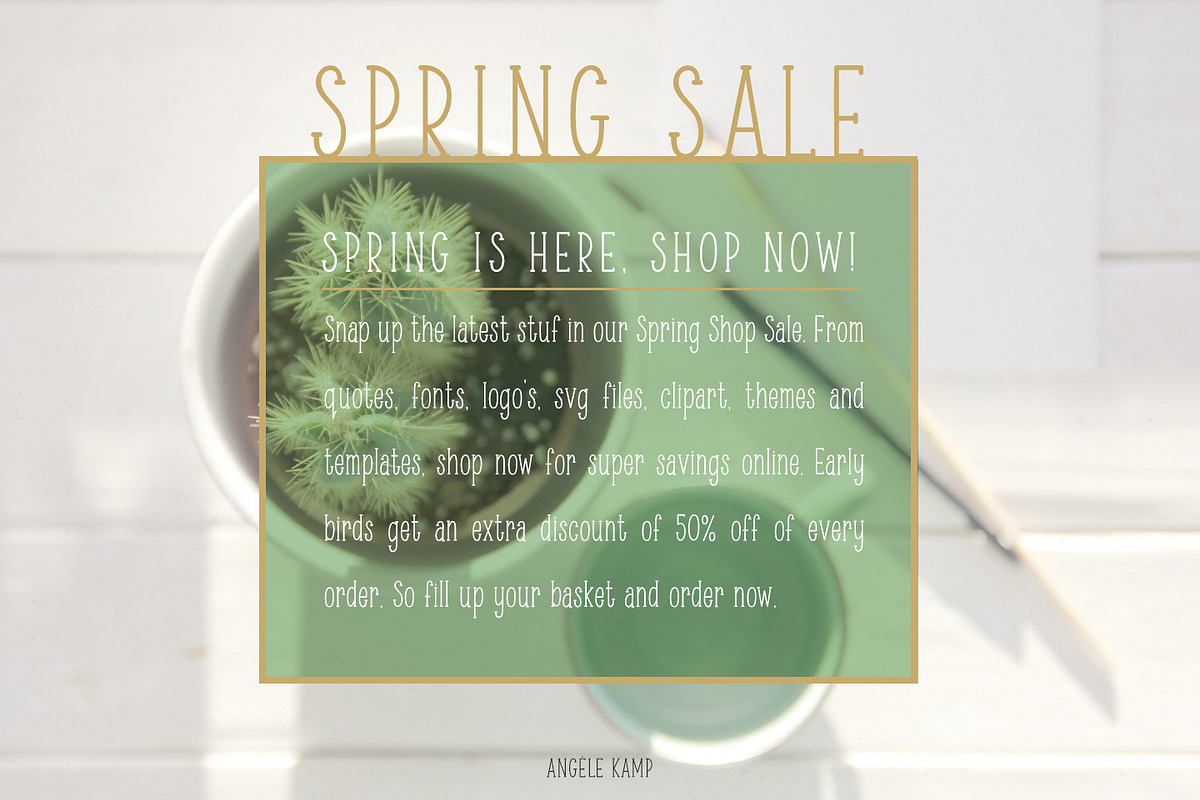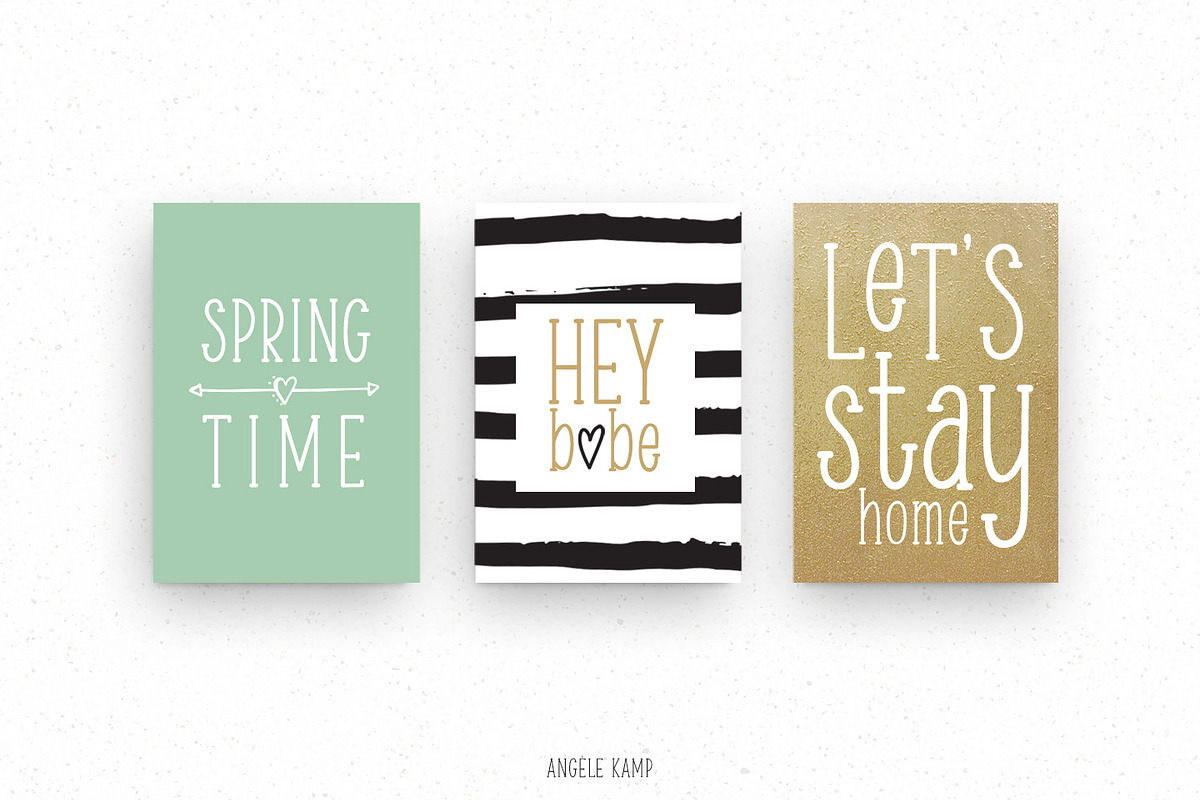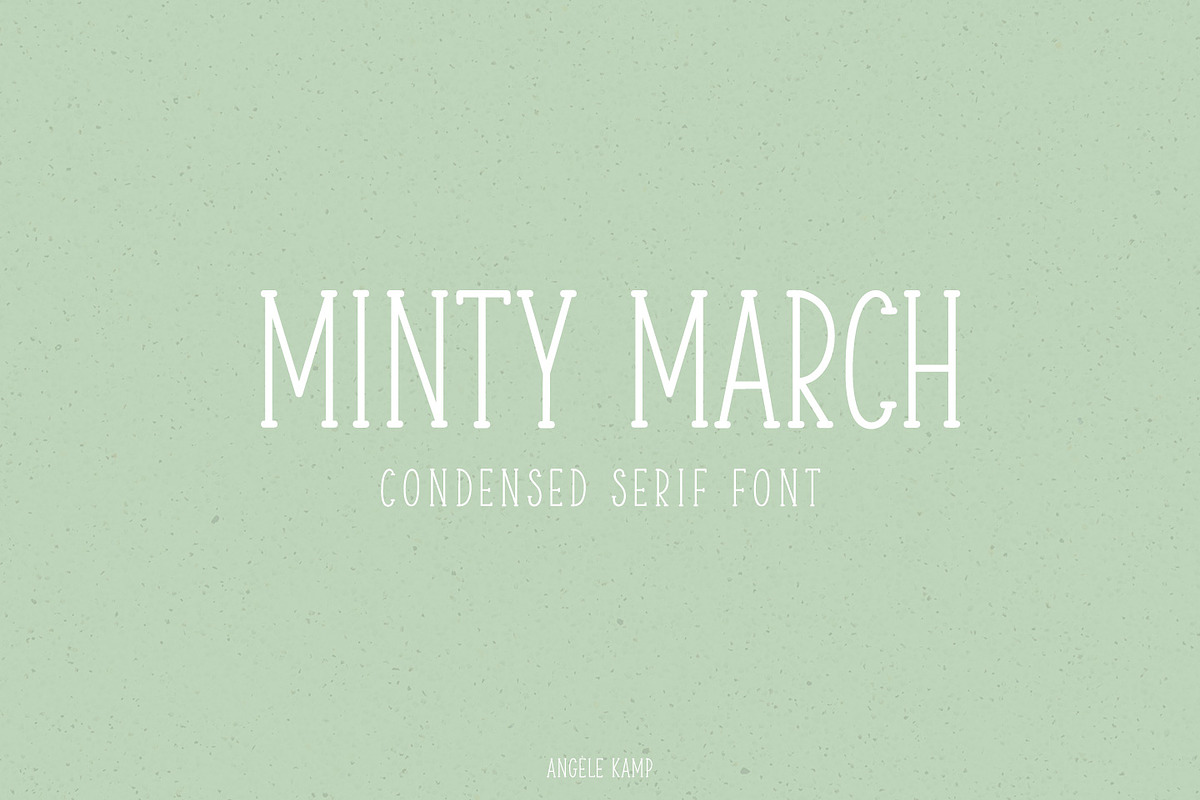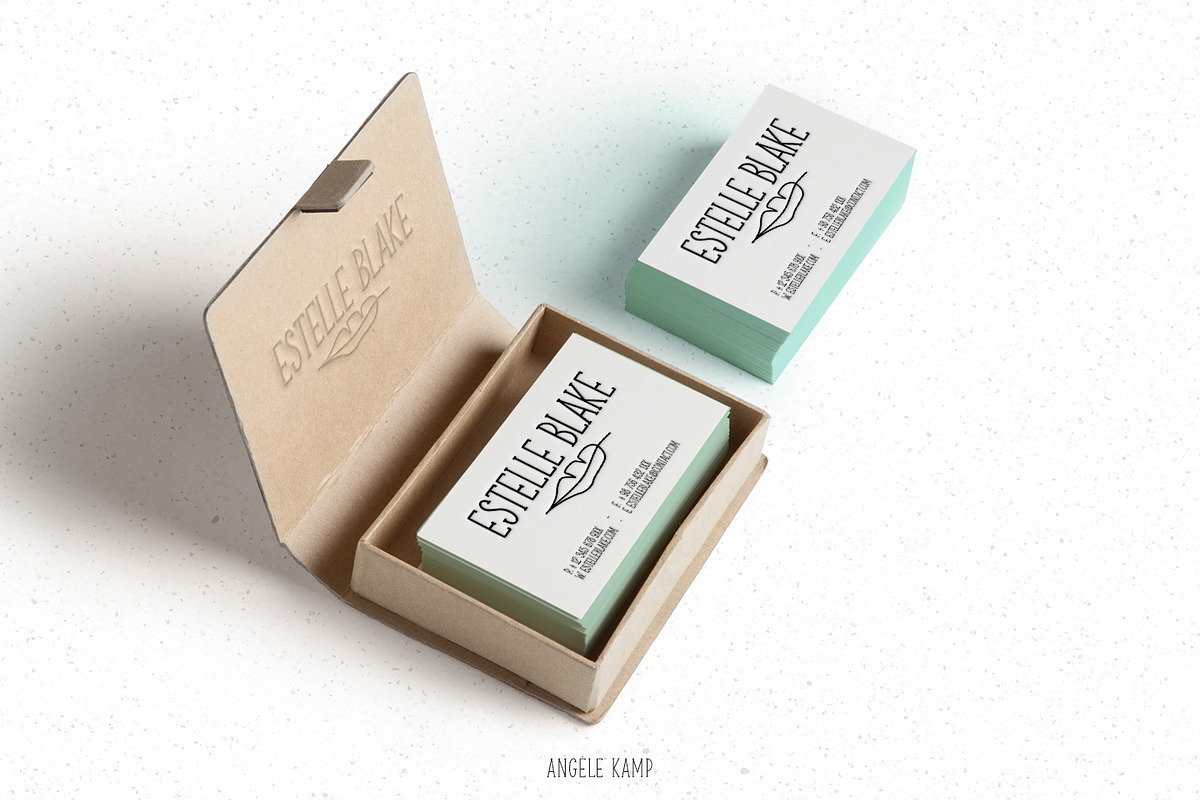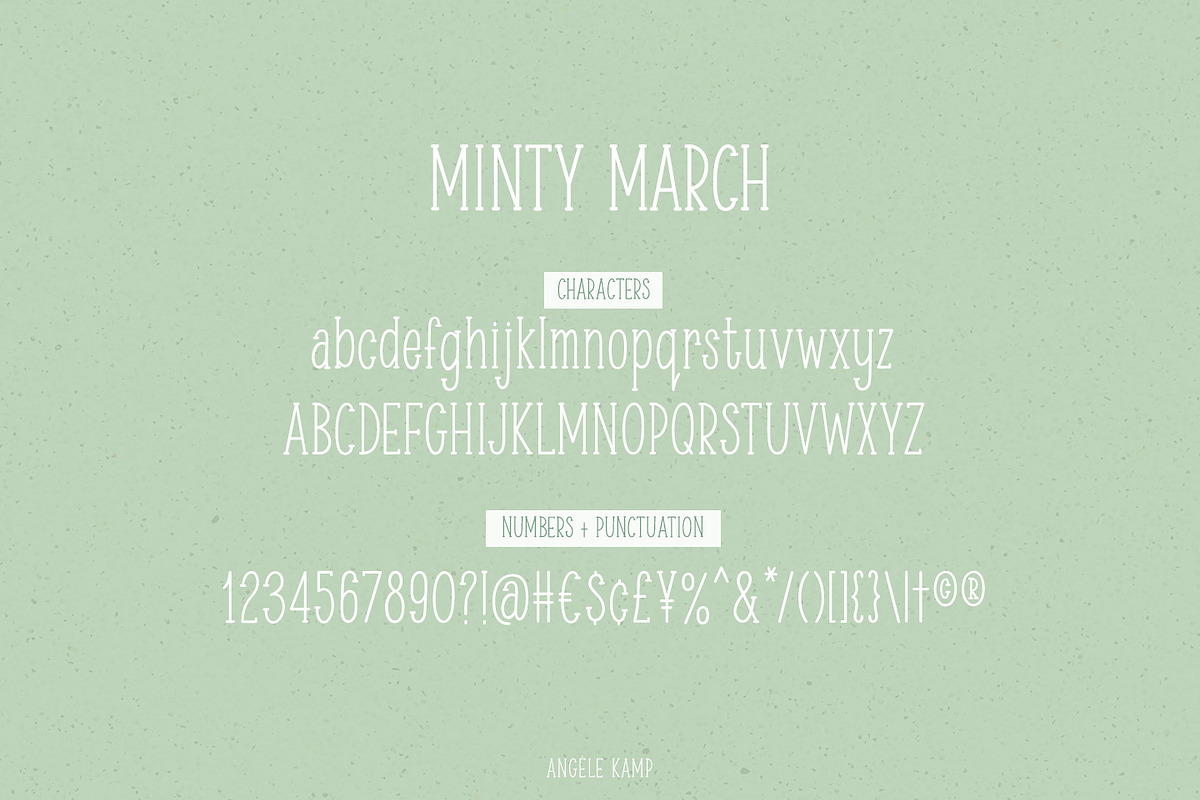
Minty March condensed serif font
Minty March is an adorable handwritten font that is perfect for cards, invites, birthday invitations and more. This condensed, serif also works well when combining it with a script font.
WHAT'S INCLUDED Minty March contains standard characters, lowercase, uppercase, numbers, punctuation, ligatures and international characters.